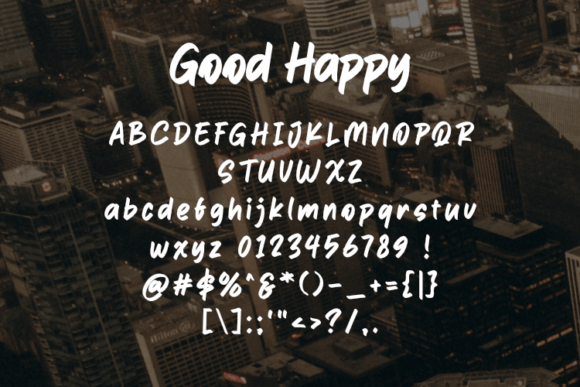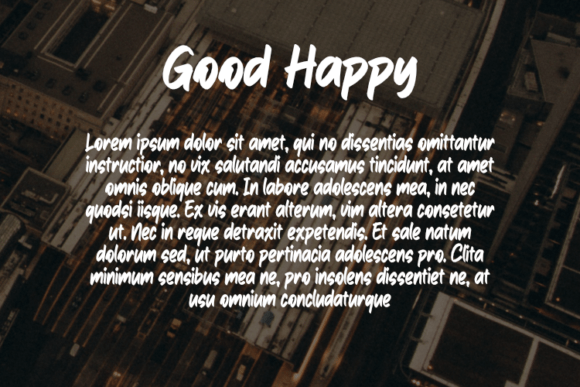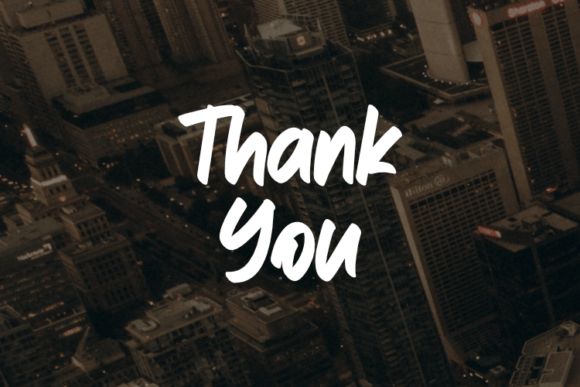
Unleash Your Creativity with Good Happy Font
Are you a designer or crafter looking for a font that can add a touch of liveliness to your designs? Look no further than Good Happy, the versatile font that’s perfect for infusing joy and energy into your creations. In this article, we’ll explore the features and benefits of Good Happy, and show you how it can help you bring your design ideas to life.
What is Good Happy Font?
Good Happy is a unique and playful font that’s designed to add a touch of happiness to your designs. Its versatility makes it perfect for a wide range of applications, from apparel and accessories to digital media and marketing materials. Whether you’re creating custom t-shirts, mugs, or social media graphics, Good Happy is the perfect choice.
Key Features of Good Happy Font
- Versatility: Good Happy is a highly versatile font that can be used in a wide range of design applications, from formal to informal, and from digital to print.
- Adaptability: The font’s adaptability makes it easy to pair with any design aesthetic, ensuring that your creations look great and cohesive.
Why Choose Good Happy Font?
So why choose Good Happy font for your design projects? Here are just a few reasons:
- Adds Liveliness: Good Happy font adds a touch of liveliness and energy to your designs, making them stand out from the crowd.
- Perfect for Apparel: The font is ideal for apparel and custom products, such as t-shirts, mugs, and phone cases.
- Effortless Pairing: Good Happy font pairs effortlessly with any design aesthetic, making it easy to create cohesive and visually appealing designs.
Endless Design Possibilities with Good Happy
With Good Happy font, the design possibilities are endless. Here are just a few ideas to get you started:
- Custom Apparel: Create custom t-shirts, hoodies, and other apparel with unique and eye-catching designs.
- Digital Media: Use Good Happy font to create engaging social media graphics, blog posts, and other digital media.
- Marketing Materials: Add a touch of liveliness to your marketing materials, such as brochures, flyers, and business cards.
- Crafting: Use Good Happy font to create unique and personalized crafts, such as handmade cards and gift tags.
Tips for Using Good Happy Font
Here are a few tips for getting the most out of Good Happy font:
- Experiment with Colors: Try pairing Good Happy font with different colors and textures to create unique and eye-catching designs.
- Play with Sizes: Experiment with different font sizes to create visual interest and hierarchy in your designs.
- Mix and Match: Try pairing Good Happy font with other fonts and design elements to create unique and cohesive designs.